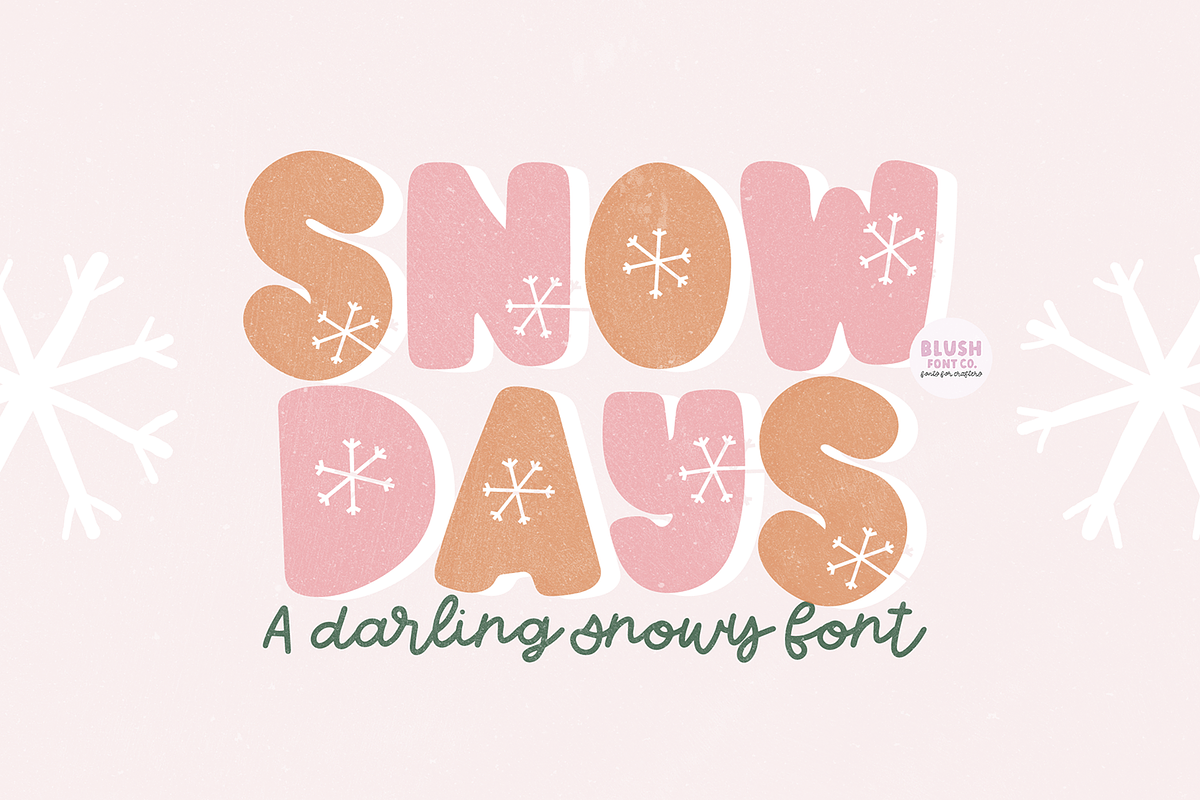
SNOW DAYS Winter Snowflake Font Free Download
Magical, festive, and perfect for the season, SNOW DAYS Winter Snowflake Font Free Download is a charming display typeface inspired by the beauty of winter and snowflakes. Ideal for holiday-themed designs, greeting cards, winter promotions, event invitations, and festive branding, this font captures the essence of the snowy season with delicate, snowflake-inspired letterforms.
With its intricate, frosty details and whimsical style, Snow Days brings a cozy, joyful vibe to your typography, making it perfect for holiday designs, winter-themed events, and anything that celebrates the beauty of the season.